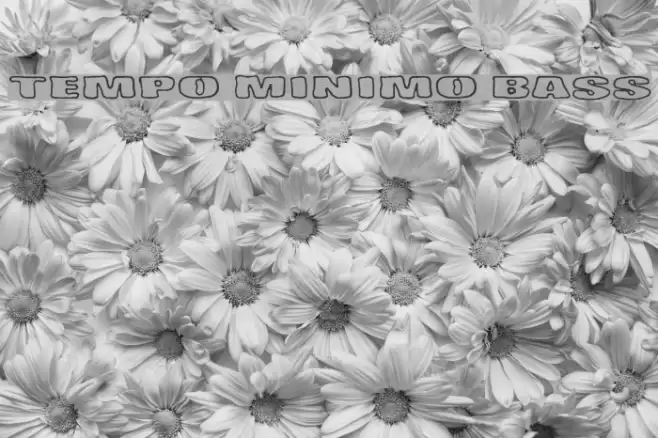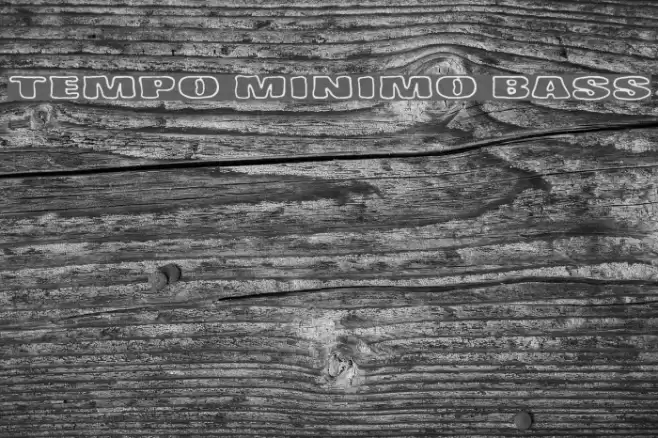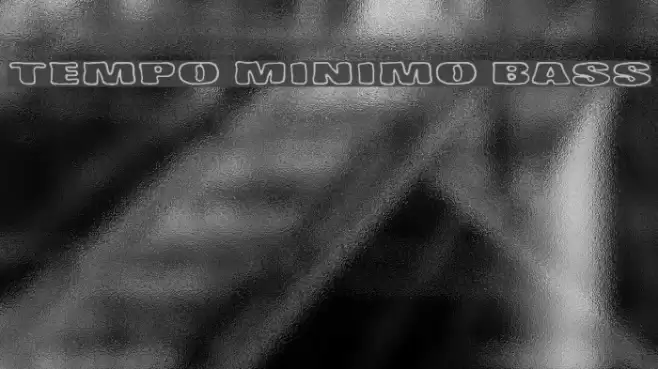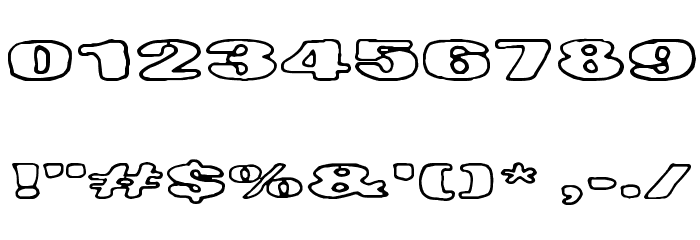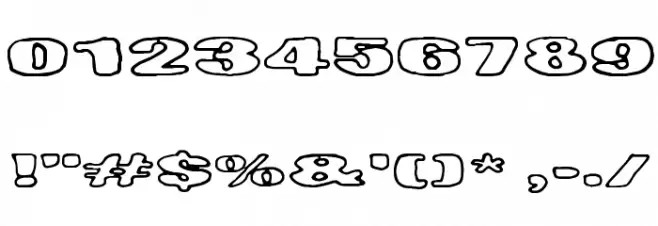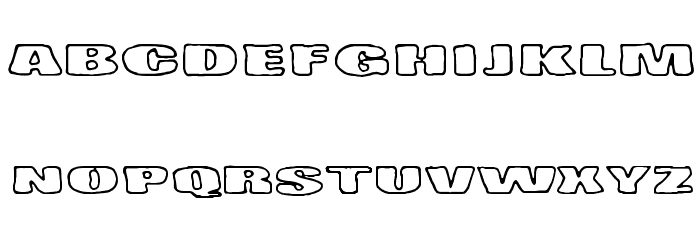
Tempo Minimo Bass Font
Tempo Minimo Bass Description
This font features a bold, outlined style that gives each character a distinct, eye-catching appearance. The letters are uppercase and have a playful, cartoonish quality, with rounded edges and a thick outline that creates a sense of depth. The numbers and special characters follow the same design, ensuring consistency throughout. This font's unique style makes it suitable for projects that require a fun and engaging visual element. The spacing between characters is normal, allowing for clear readability despite the bold outlines.
A bold, outlined font with a playful, cartoonish style.
- Proposed Projects: Ideal for children's books, comic titles, posters, and playful branding.
- Overall Style: Playful, Cartoonish